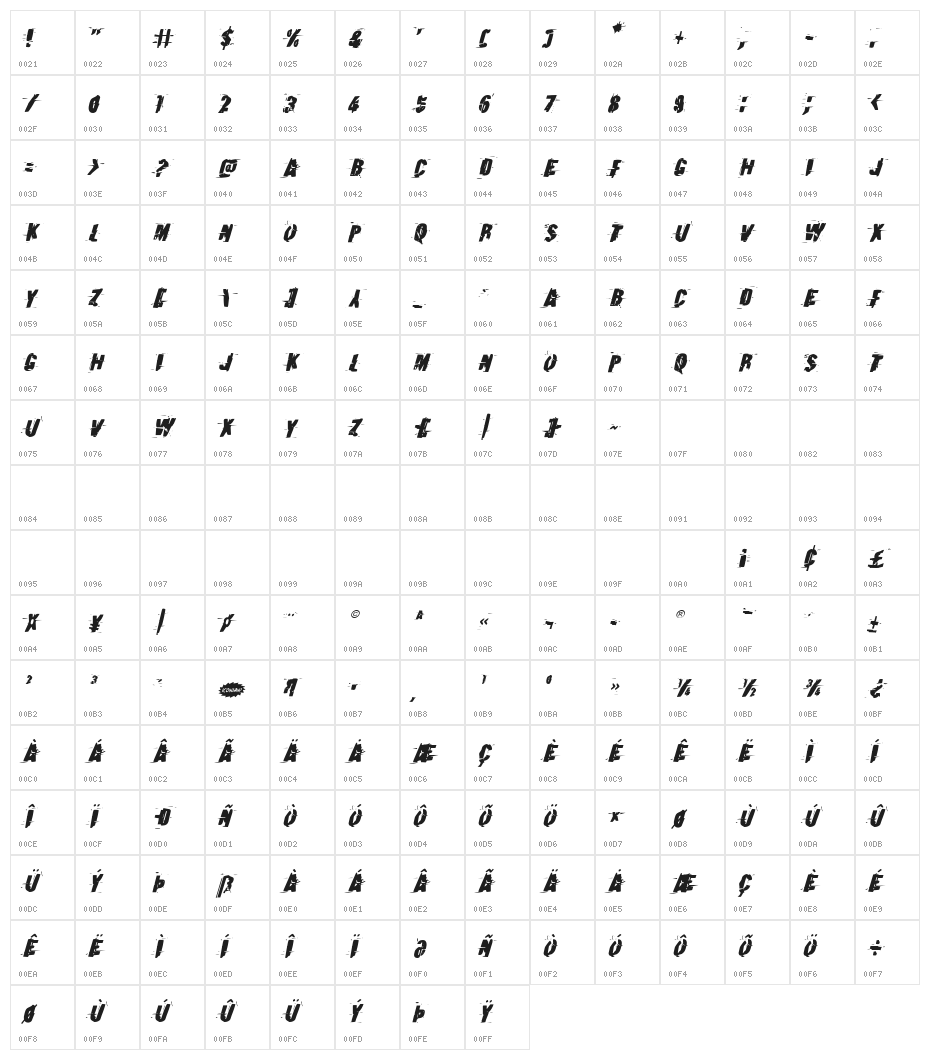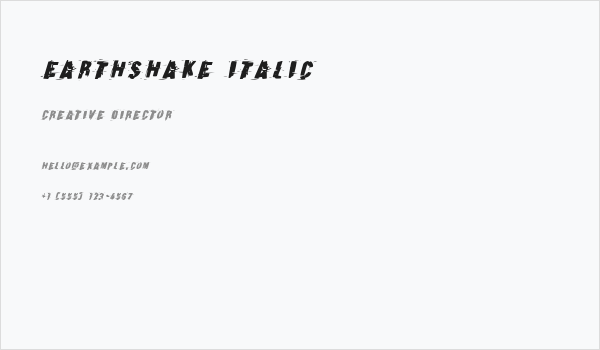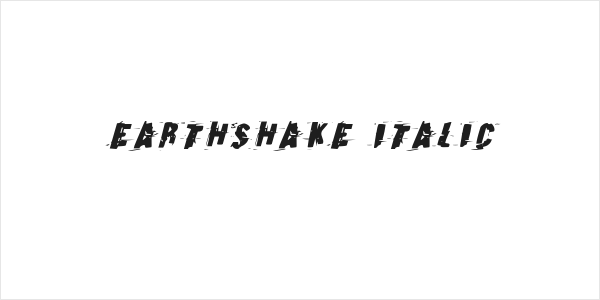
Earthshake Italic Font
Earthshake Italic Description
This font features a bold and dynamic style with a distressed, grunge aesthetic. The characters are slanted, giving an italicized appearance that enhances its energetic and rebellious vibe. The rough, uneven edges and scattered texture create a sense of movement and chaos, making it ideal for projects that require a bold statement. The uppercase and lowercase letters maintain consistency in their rugged design, while the numbers and special characters follow the same distressed theme. This font is perfect for designs that aim to capture attention and convey a sense of urgency or excitement.
| Overall Style | Modern, Grunge |
| Proposed Projects | Ideal for music album covers, event posters, urban-themed designs, and edgy branding projects. |